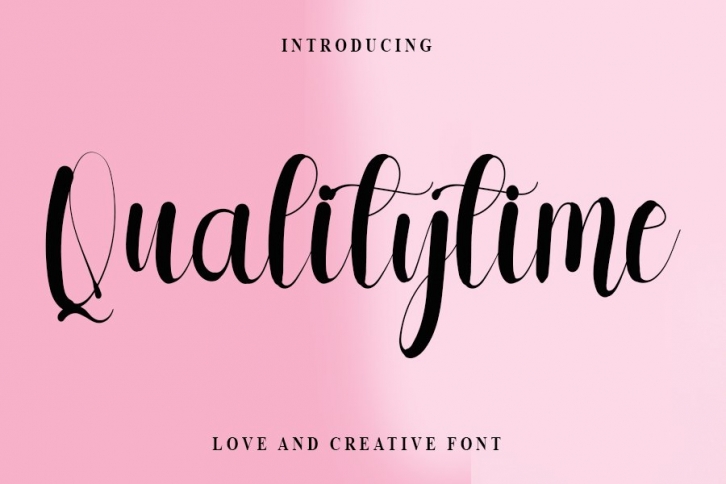
Qualitytime is a gorgeous font that was realeased on April 27, 2022. The font can be used in many style contexts and design environments. Perfect for invitations, magazines, websites, logos, and more! It was designed by FreshType INK and the file size is 5.85 MB. Thanks for checking out this font!